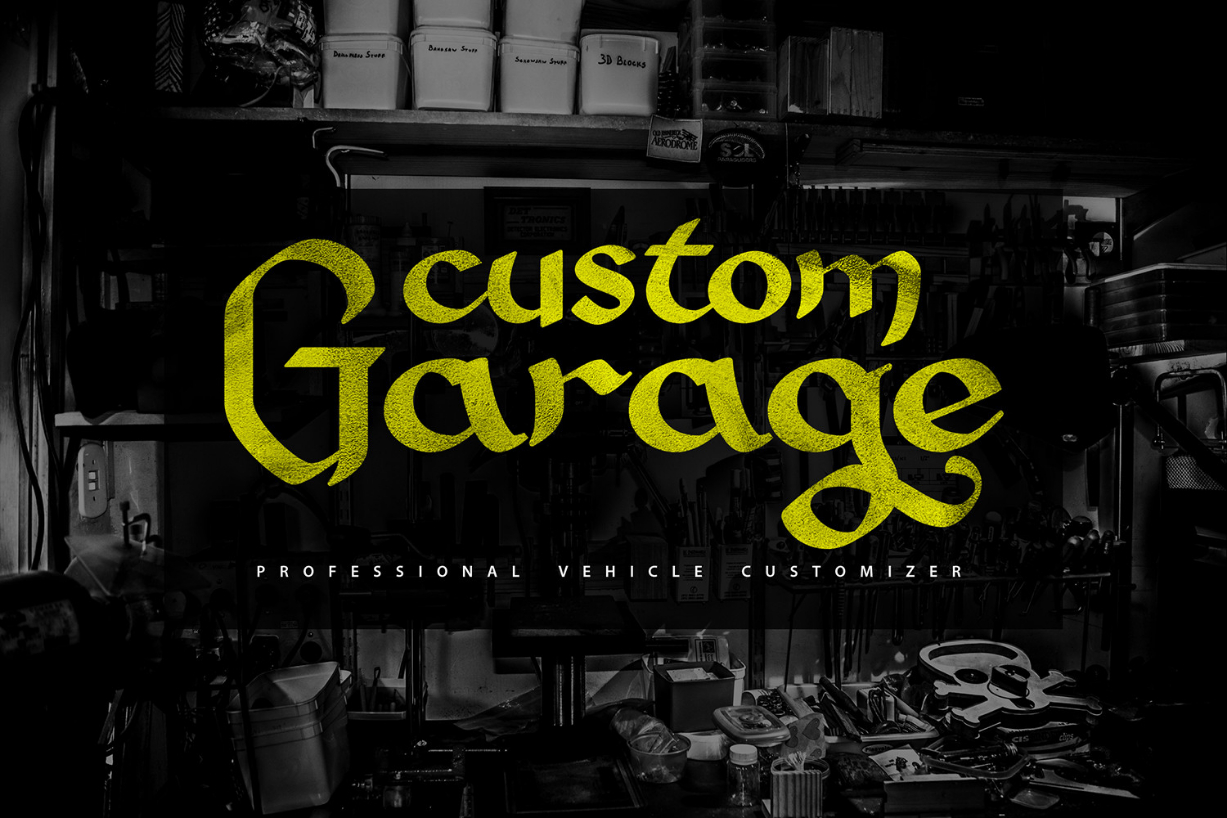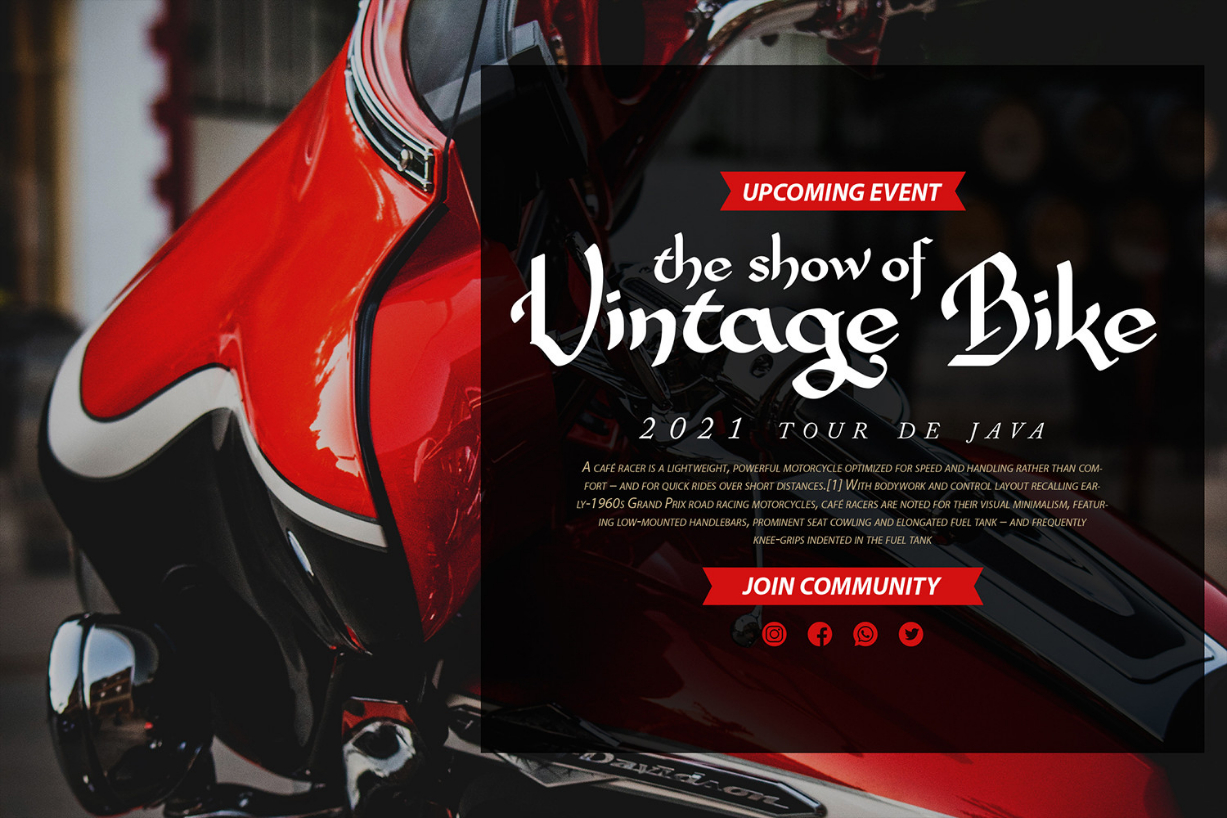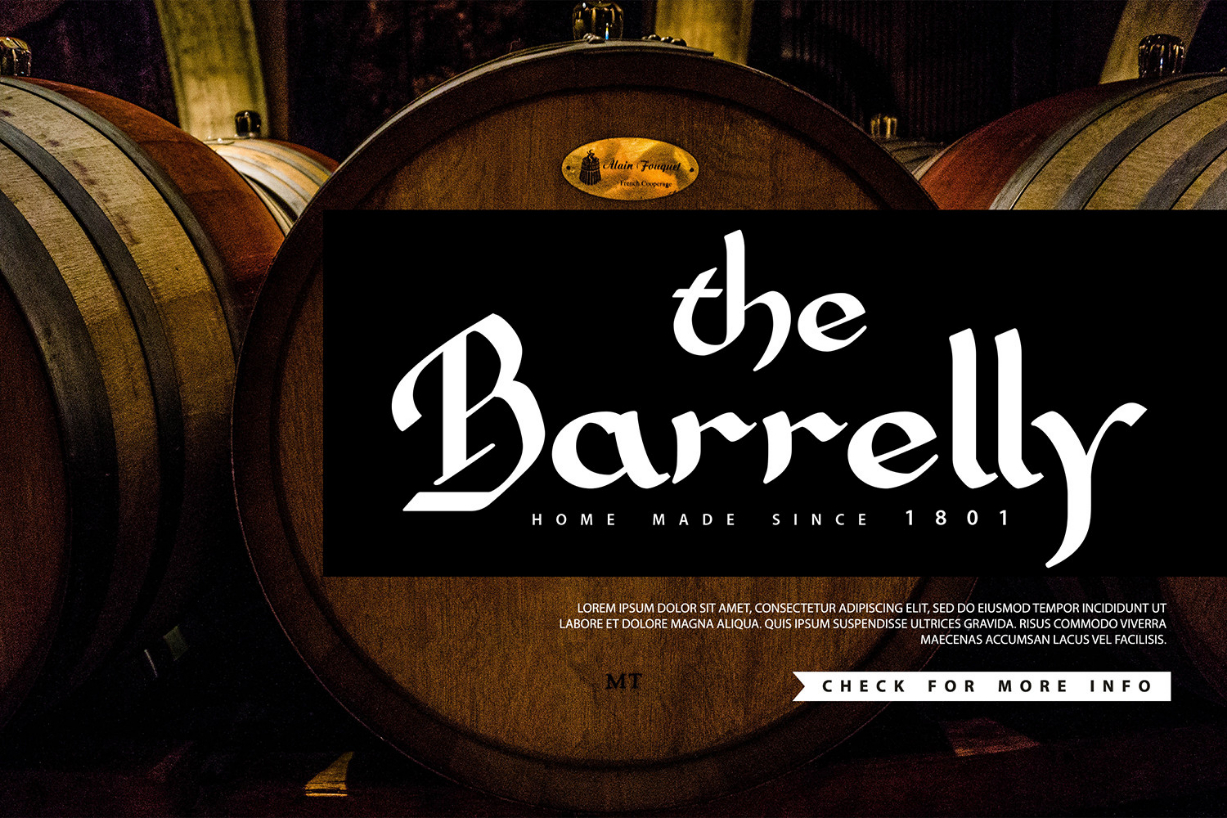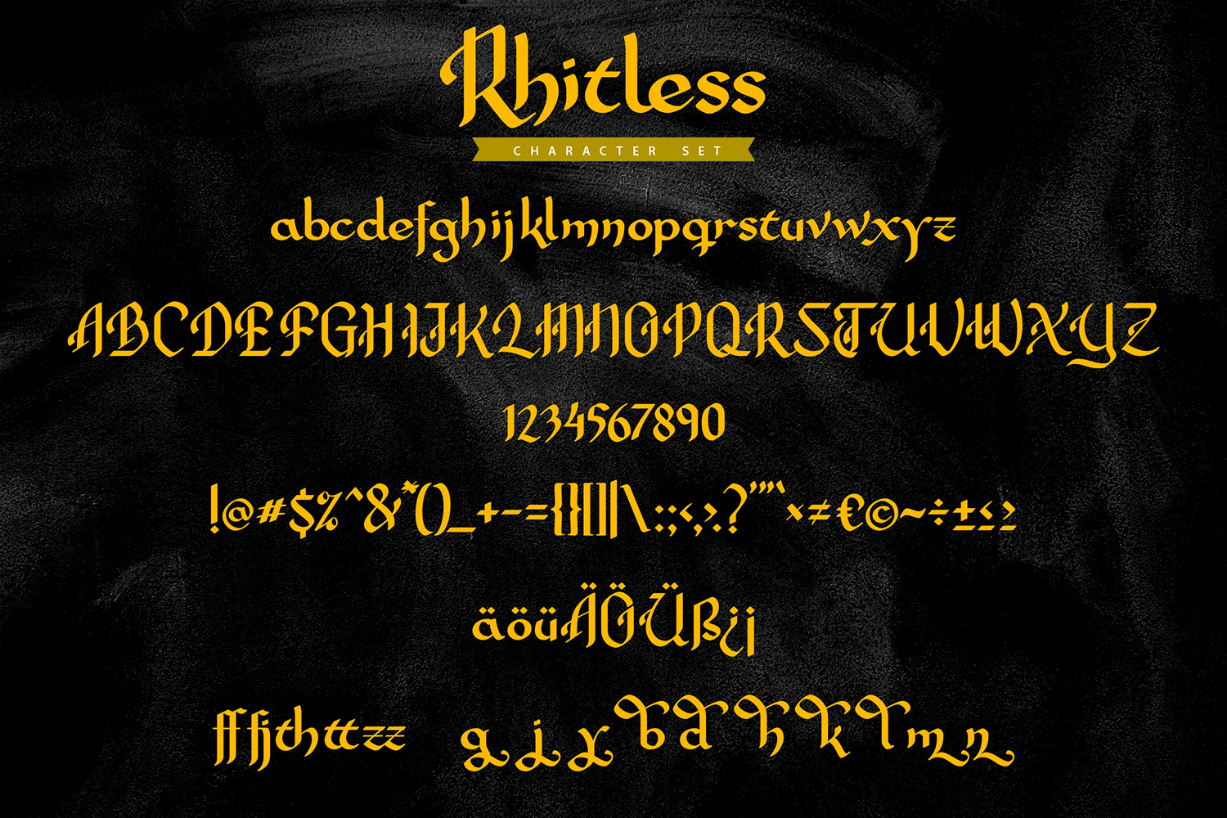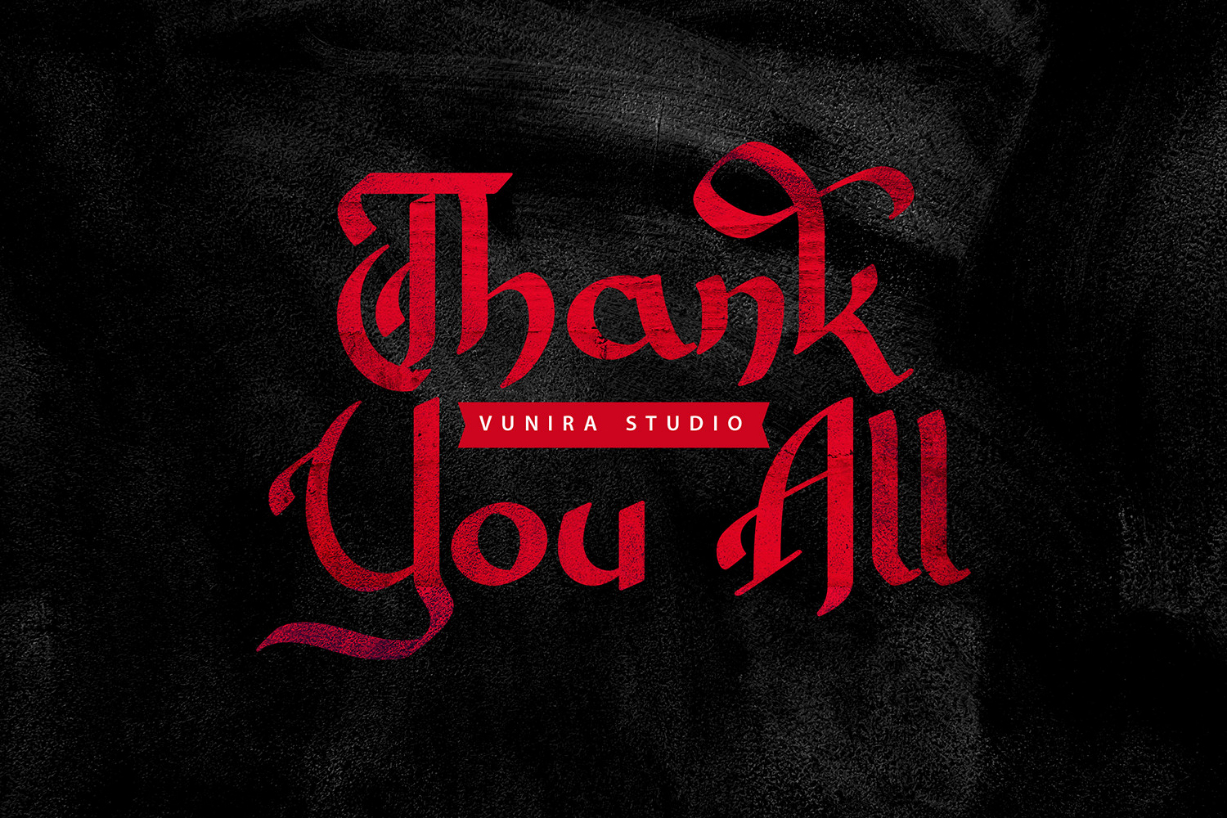
Rhitless Font
About Rhitless Font
Rhitless is a distinct and elegant blackletter font. It reads as strong, confident, and dynamic and can add tons of nostalgic character to your designs.